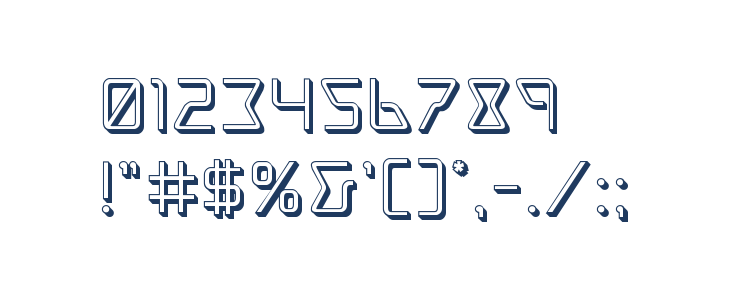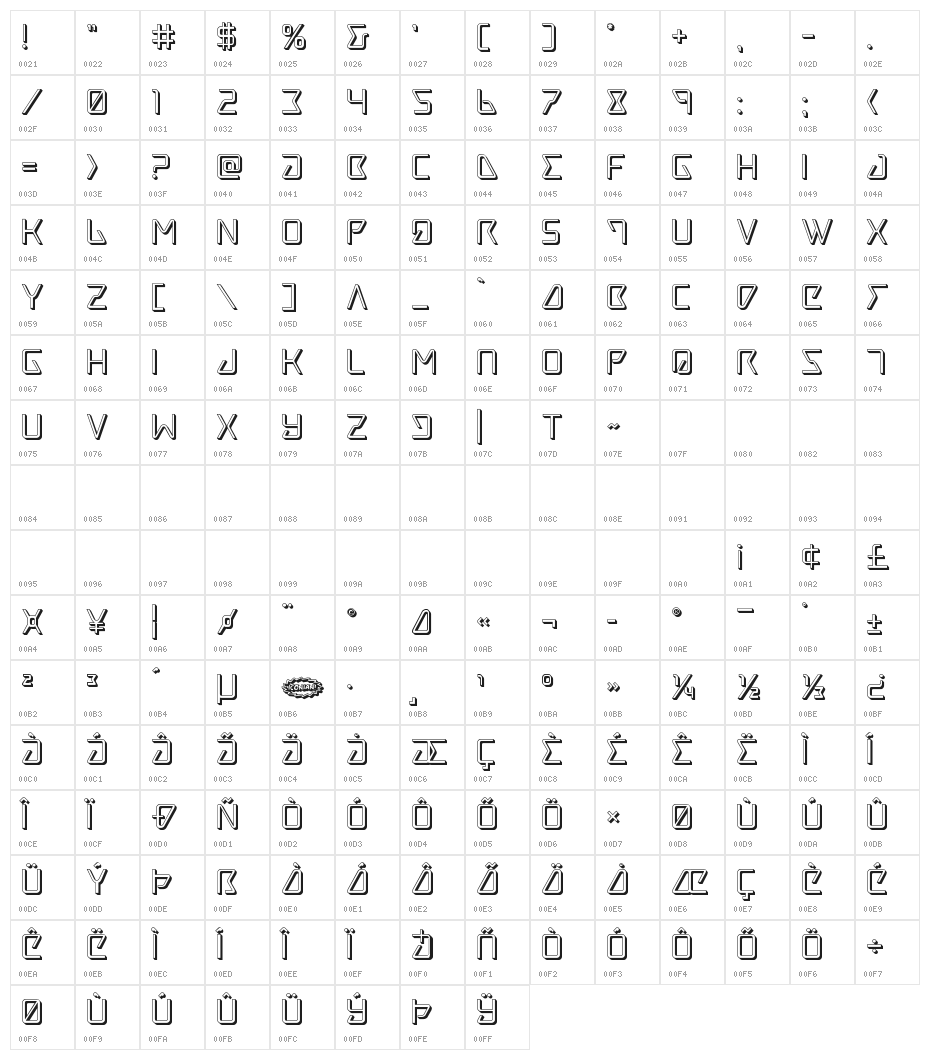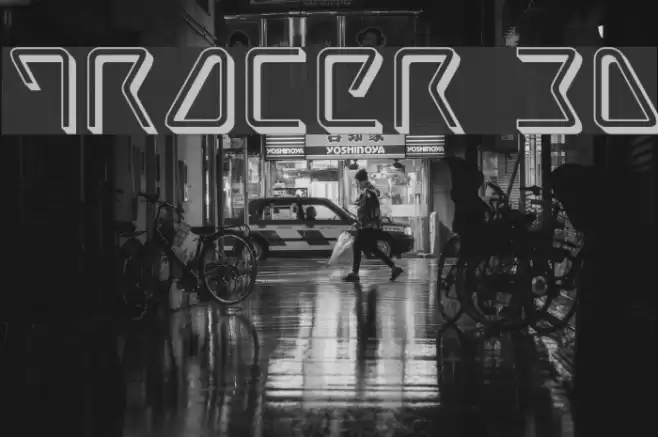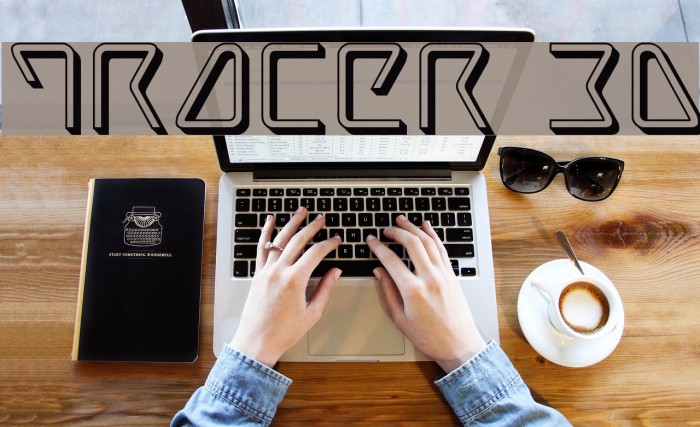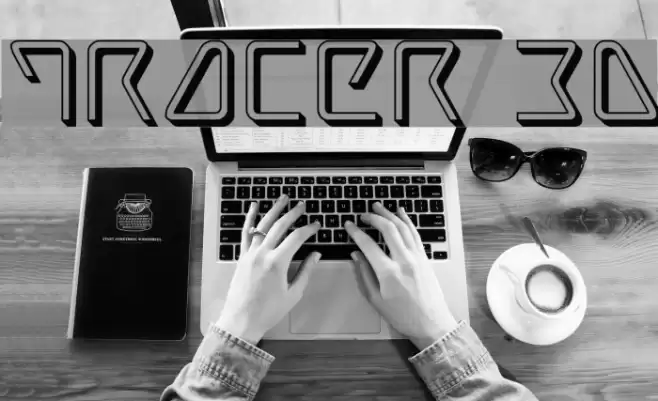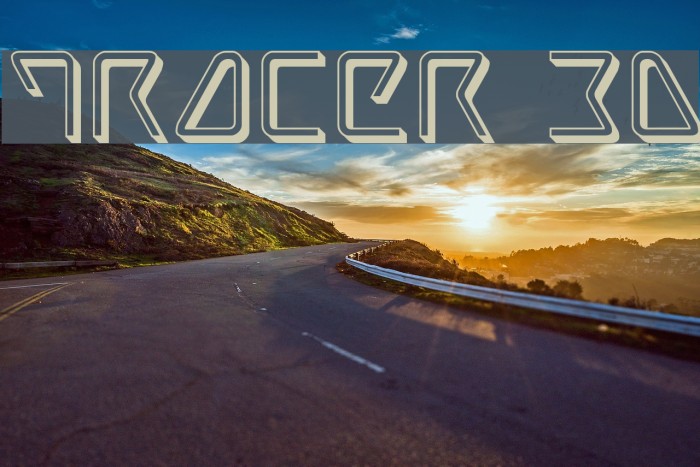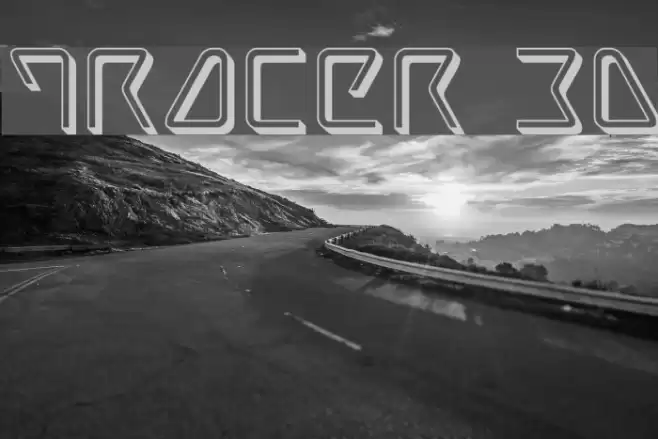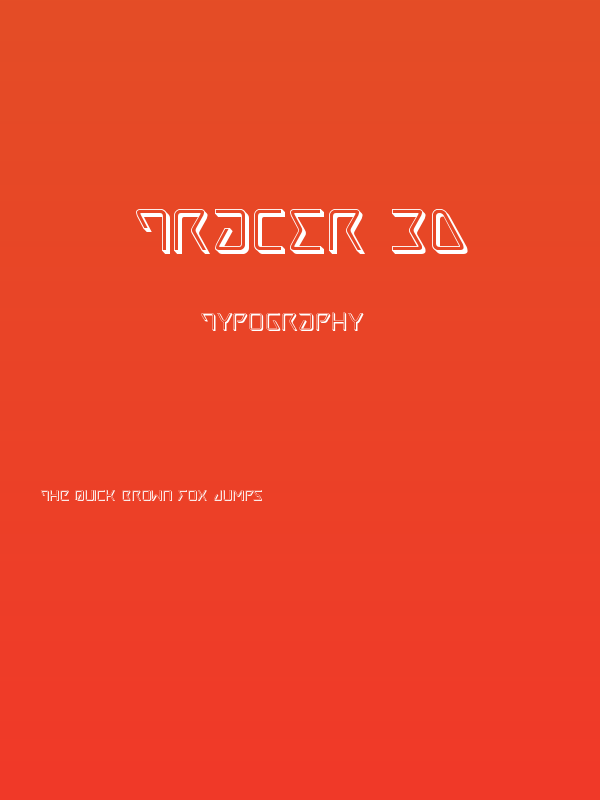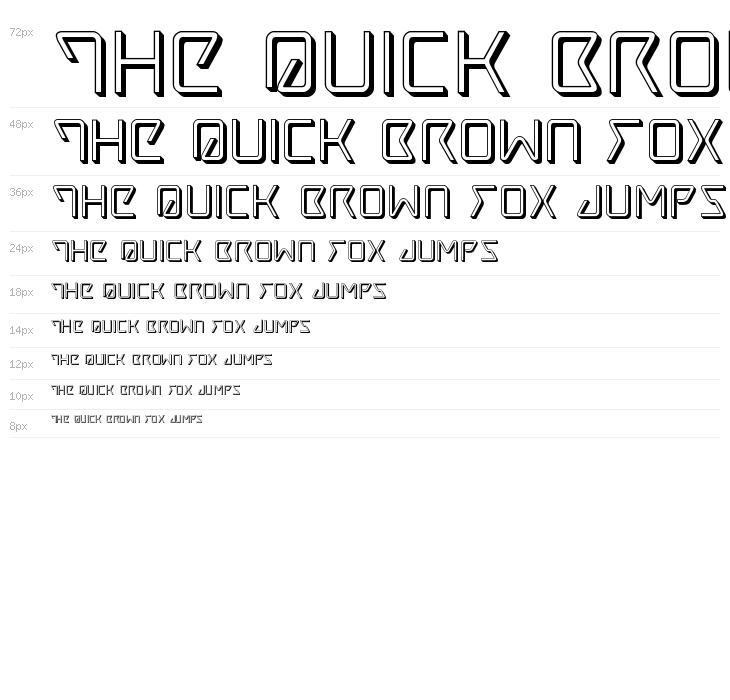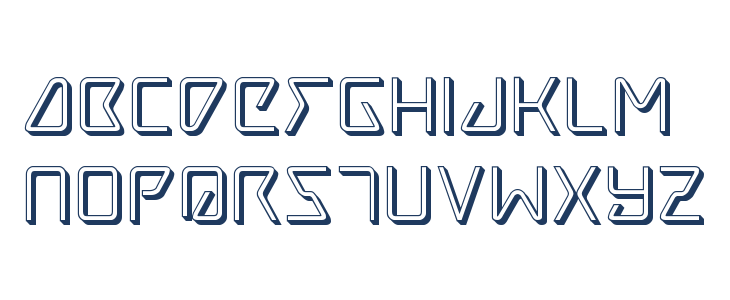
Tracer 3D Font
Tracer 3D Description
This font features a futuristic and geometric design with a 3D effect, characterized by bold, angular lines and a distinct outline that gives each character a sense of depth. The uppercase and lowercase letters maintain a consistent style, with sharp edges and a modern aesthetic. Numbers and special characters follow the same design principles, ensuring a cohesive look across all glyphs. The font's unique style makes it stand out, ideal for projects that require a modern and edgy appearance.
| Proposed Projects | Ideal for sci-fi themed designs, video game graphics, tech branding, and futuristic posters. |